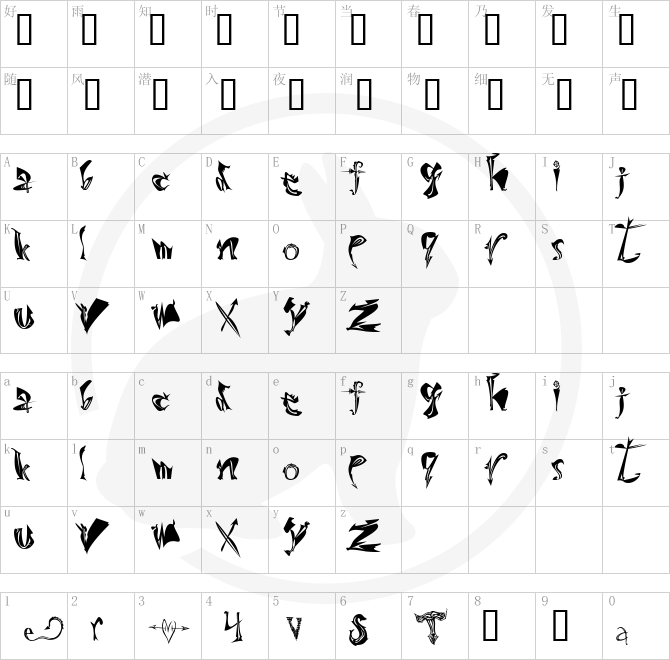
- Font Name:UckNPretty
UckNPretty.ttf is a very beautiful artistic font, UckNPretty.ttf is widely used in the design and printing of various books and pictures,UckNPretty.ttf has a strong visual impact,UckNPretty.ttf is a commonly used font in newspapers, magazines and books, and is used in posters, e-commerce Poster design, store design, logo design, font design and other fields.UckNPretty.